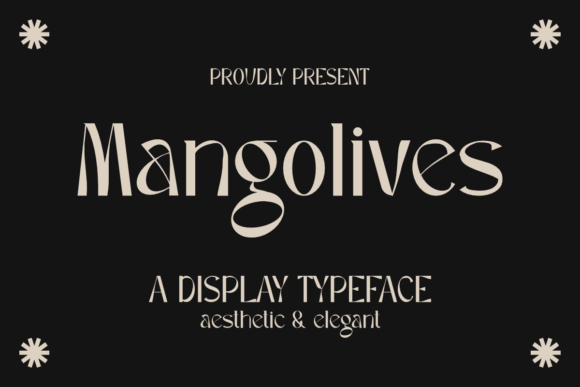
Introducing Mangolives Font, the ultimate game-changer in the world of fonts! Created by Masyafi Studio, this modern and stylish display font is here to revolutionize your design projects.
With its captivating appeal, Mangolives Font is the perfect choice for anyone looking to add a touch of sophistication and uniqueness to their creations. Whether you're a professional designer or an aspiring creative, this font will undoubtedly become your go-to tool for app development and beyond.
Why settle for ordinary when you can have extraordinary? Mangolives Font stands out from the crowd, making a bold statement with its sleek and elegant design. It effortlessly captures attention and evokes a sense of wonder, leaving a lasting impression on anyone who lays their eyes on it.
Unleash your creativity and let Mangolives Font take your projects to new heights. Its versatility knows no bounds, adapting seamlessly to any design concept or theme you have in mind. From logo design to branding, website development to social media graphics, this font will elevate your creations to a whole new level.
But it's not just about aesthetics. Mangolives Font is meticulously crafted to ensure legibility and readability, even at smaller sizes. Your messages will be conveyed with clarity, ensuring that your audience gets the full impact of your content.